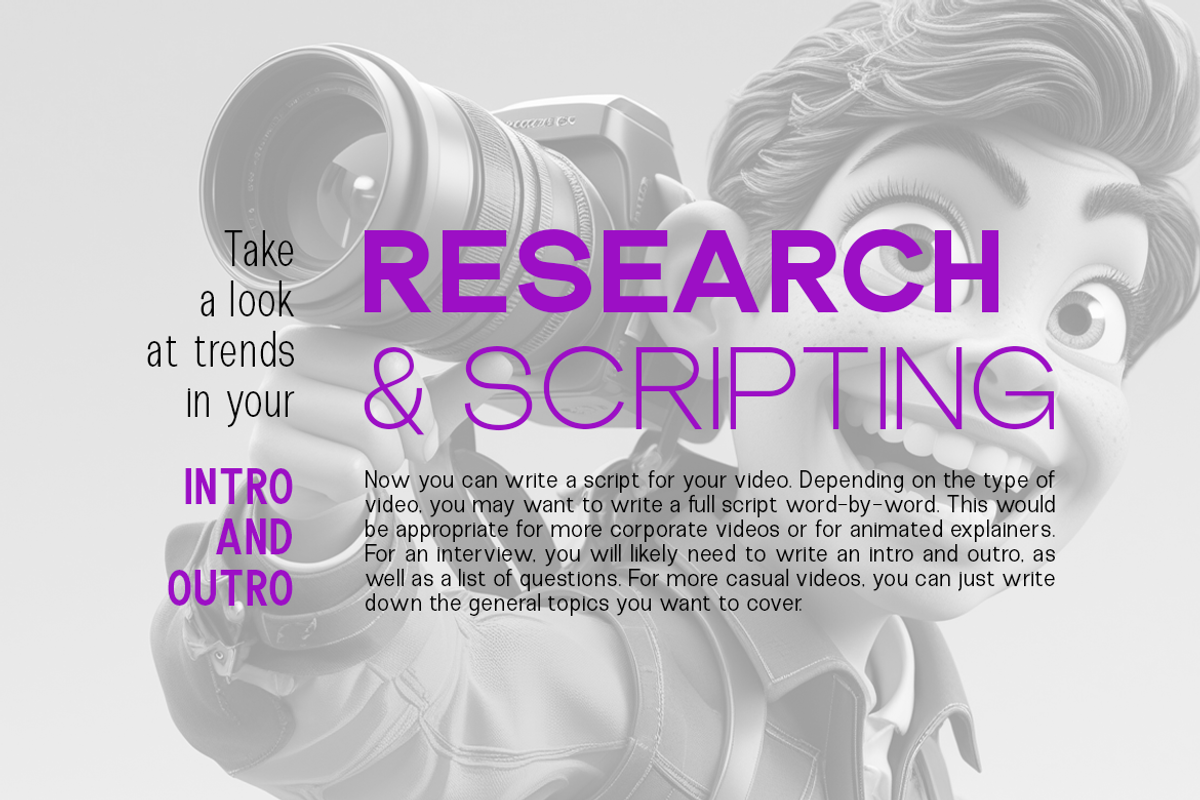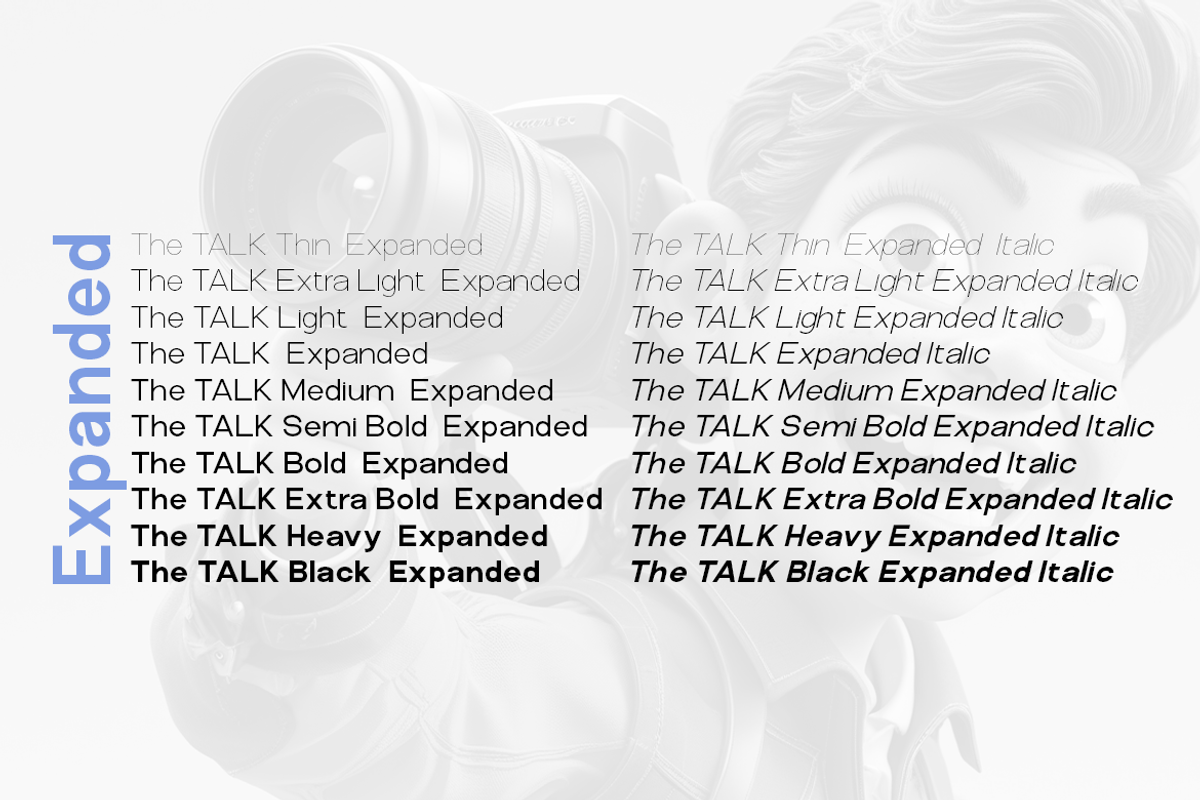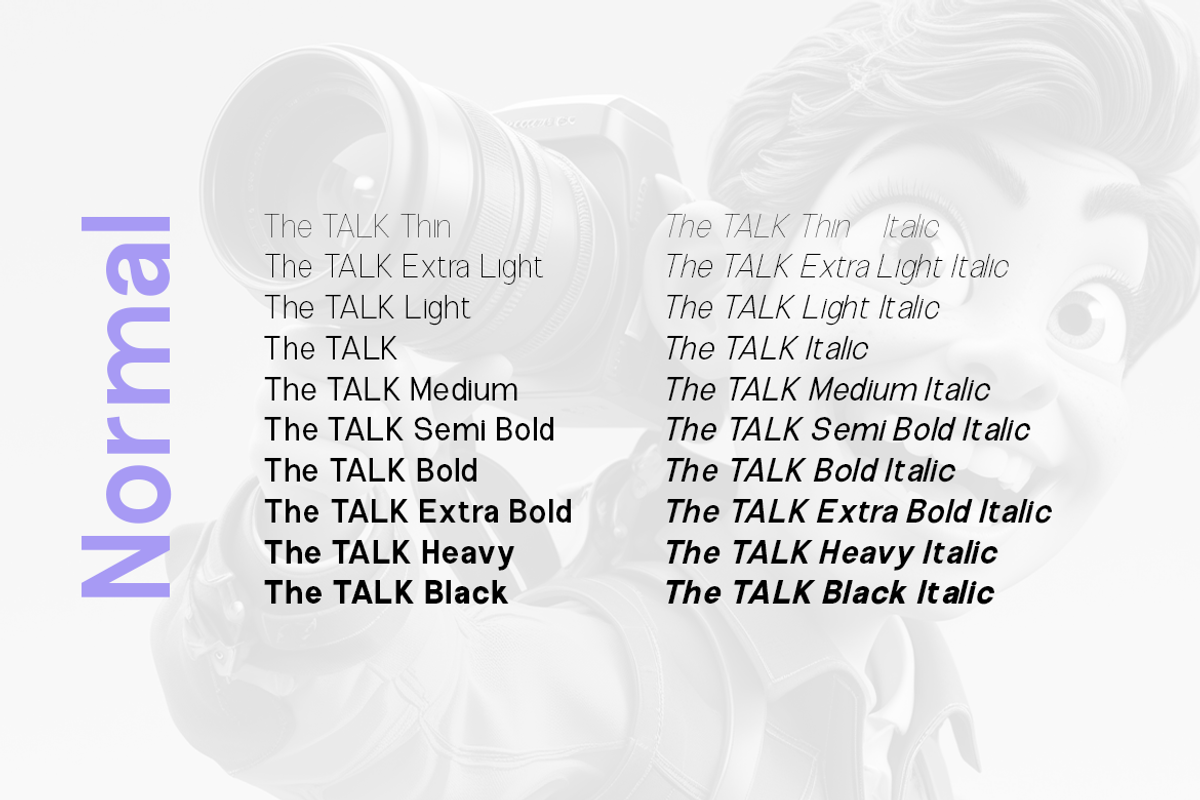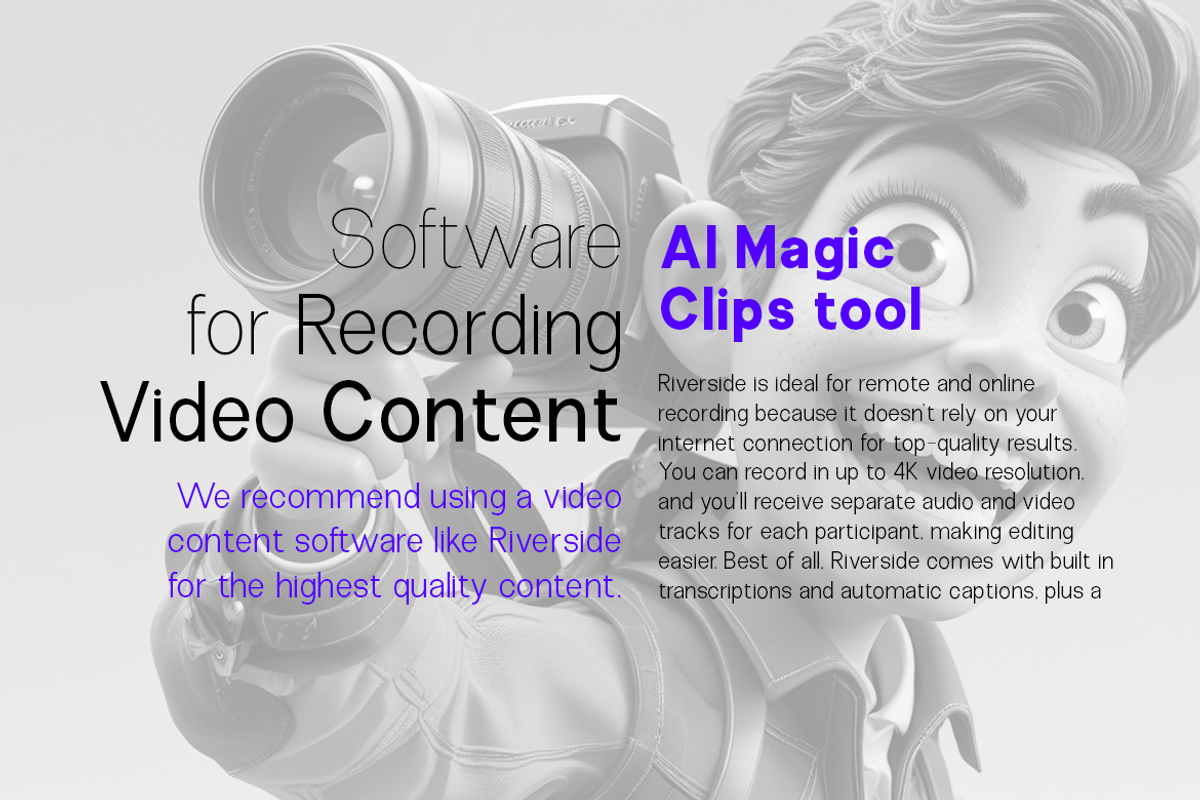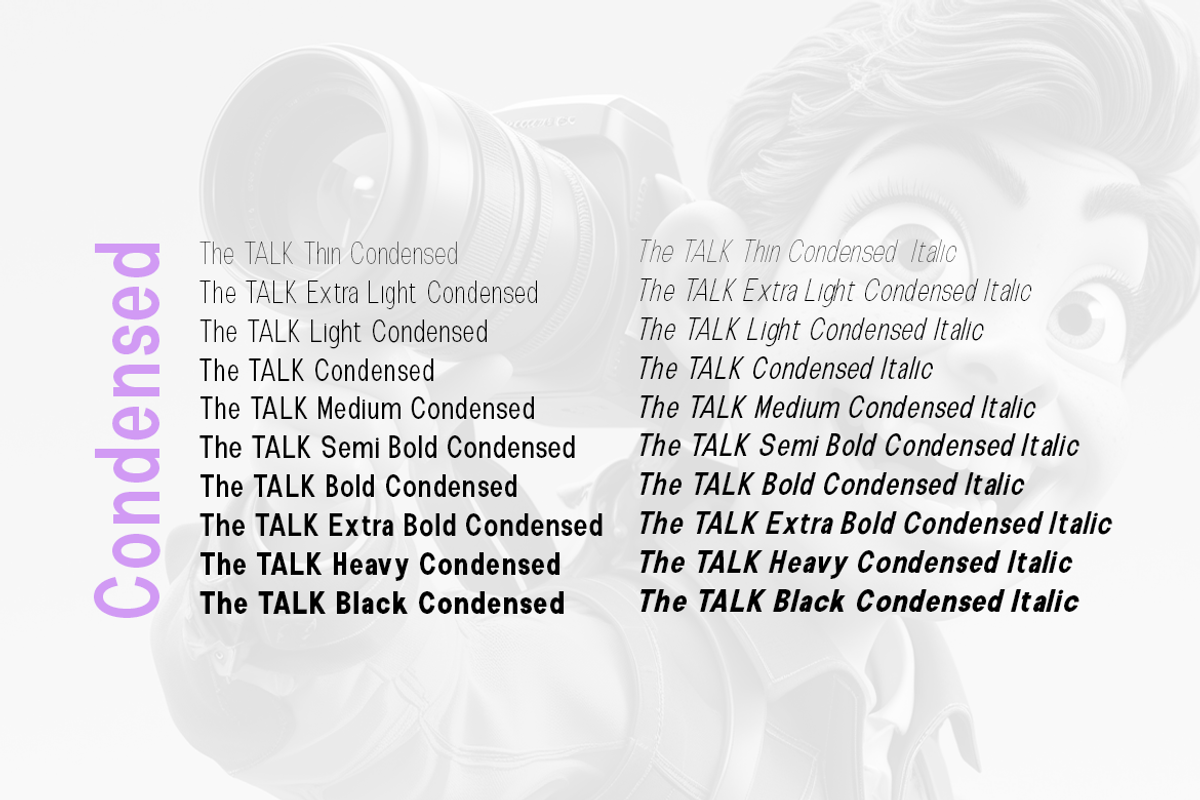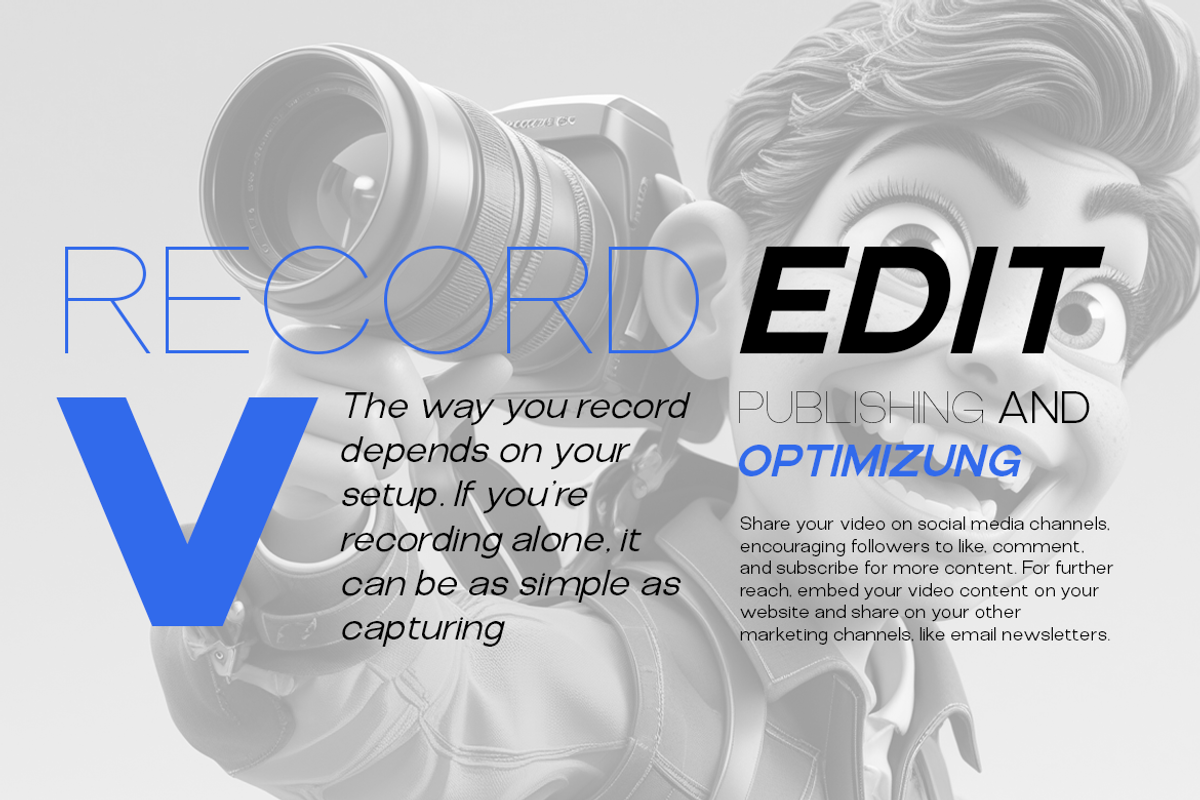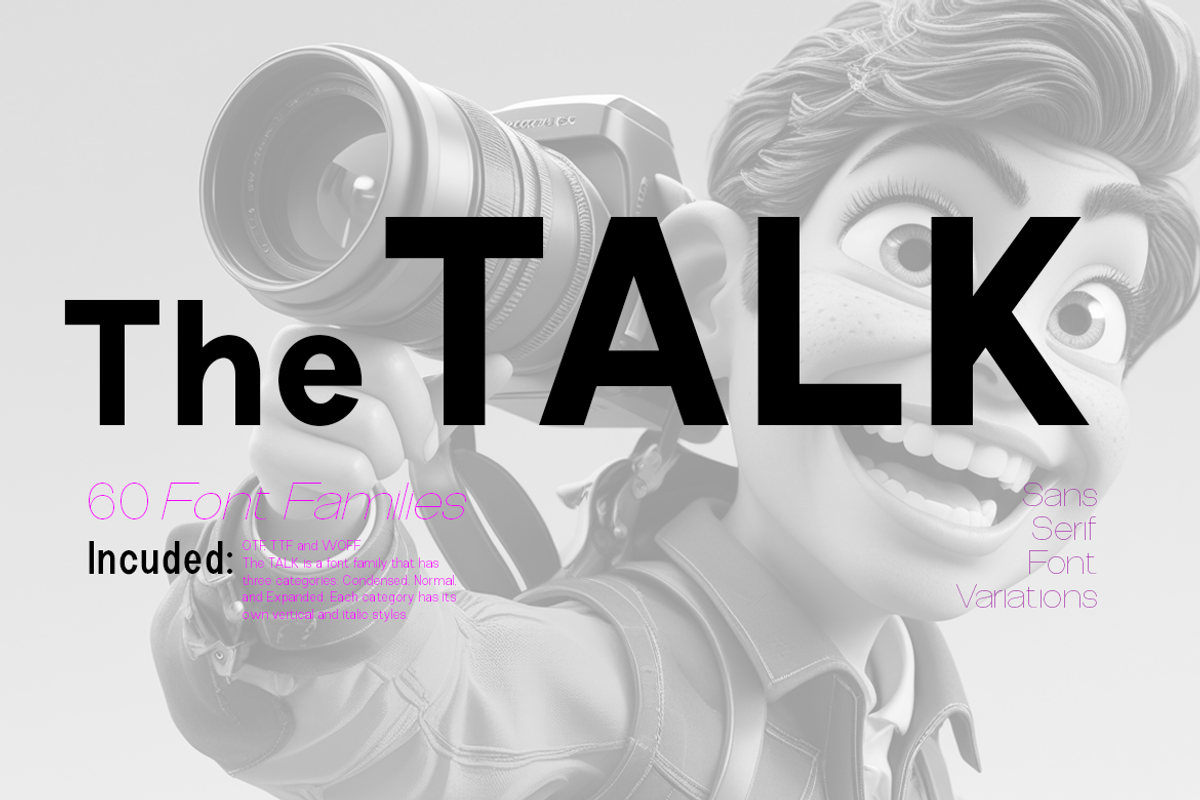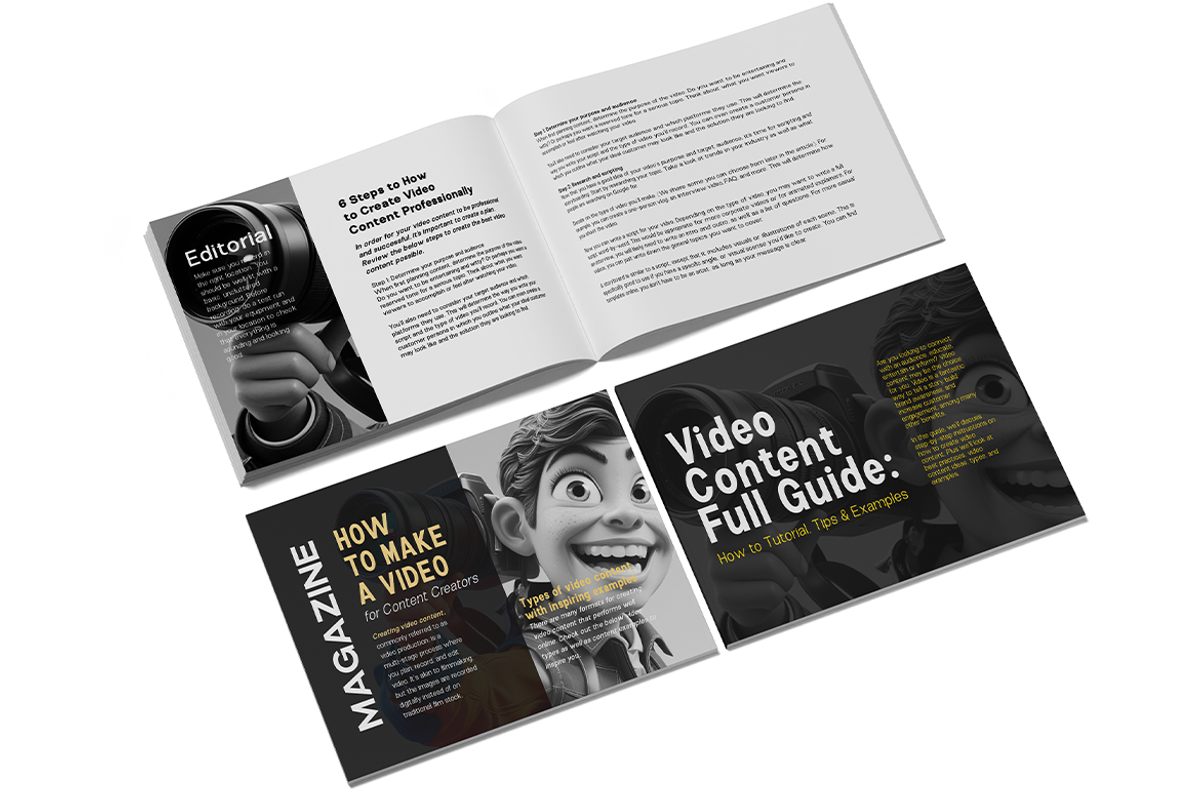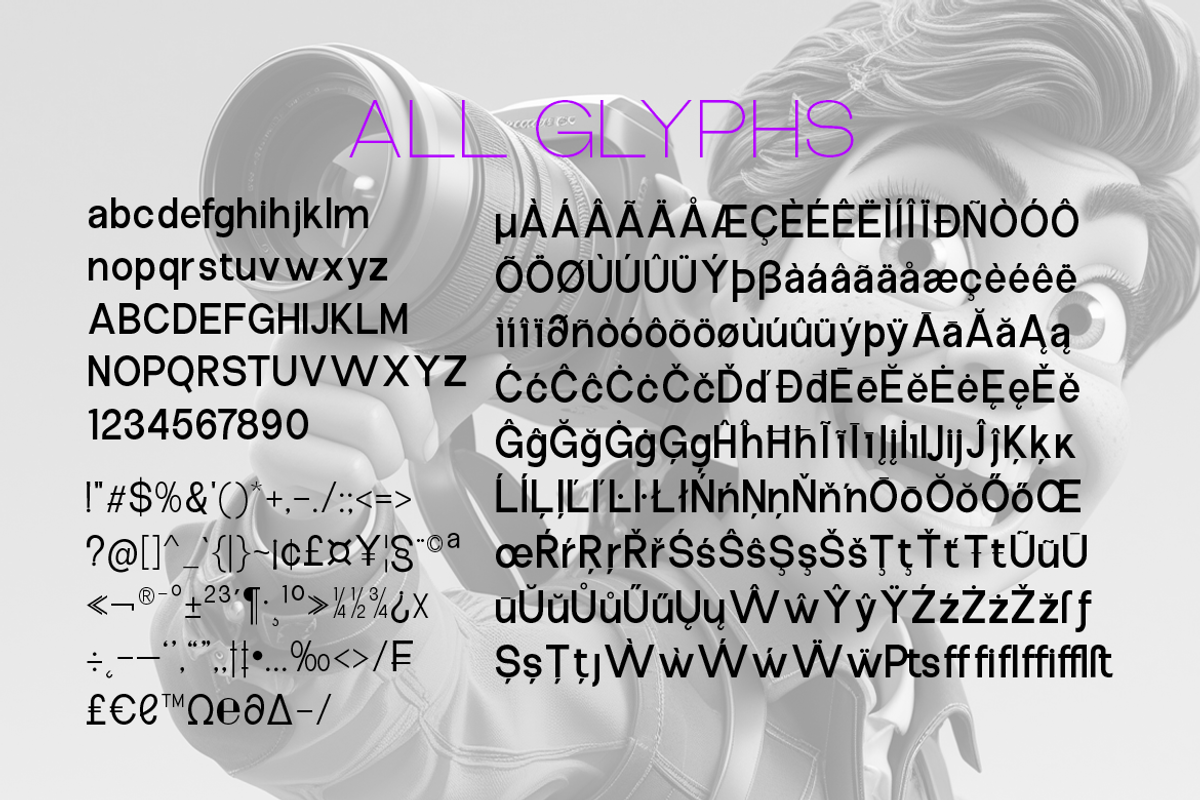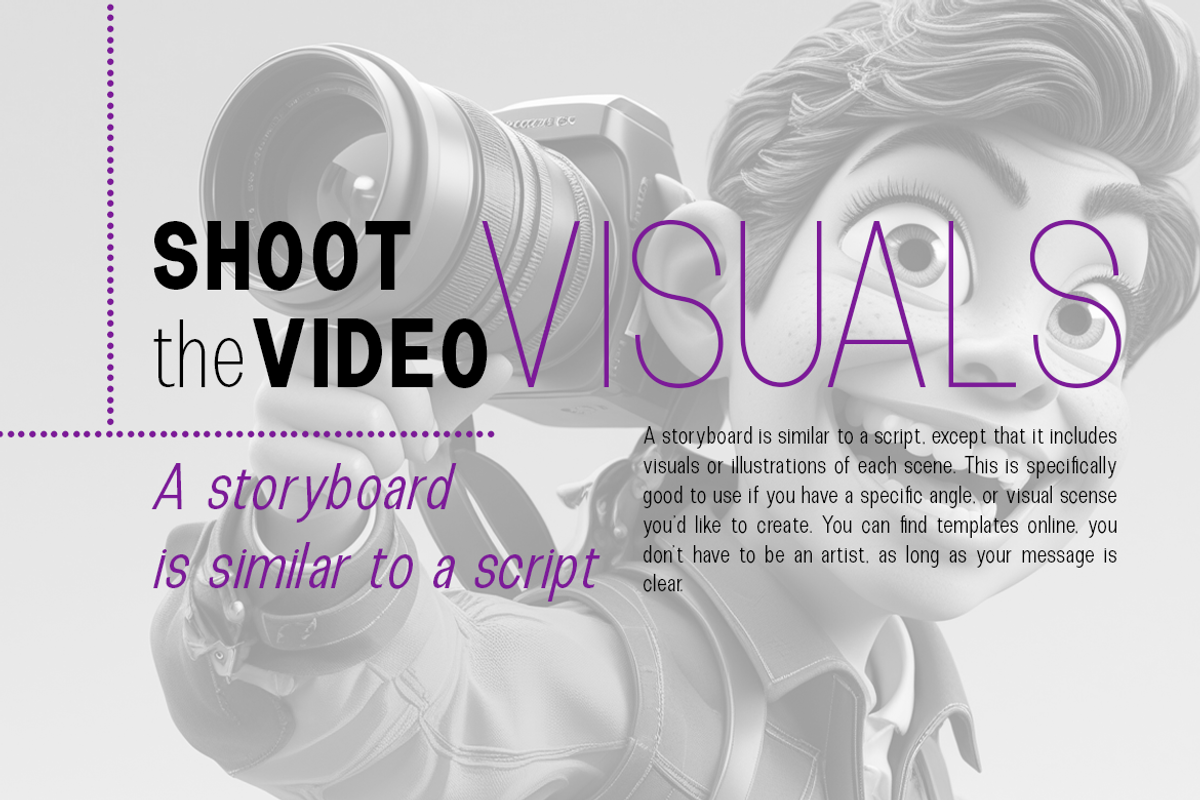
The Talk Sans Serif Font Family
The Talk—60-Style Sans Serif Font Family The Talk is a bold, modern, and highly flexible sans serif family created to elevate your branding, editorial, and digital design projects. With 60 professionally crafted styles, this collection gives you everything you need to build a strong and consistent visual identity. Designed with clean geometry and subtle humanist curves, The Talk delivers a look that’s modern, confident, and effortlessly stylish. Whether you're designing sleek headlines or clean interface text, this family adapts beautifully to any creative direction. Three Complete Subfamilies for Total Creative Freedom Condensed (20 Styles) Sharp, space-saving styles perfect for eye-catching headlines, bold posters, and impactful layouts. Thin to Black + Italics. Normal (20 Styles) The all-purpose workhorse—balanced, readable, and ideal for everything from body copy to branding, apps, packaging, and marketing materials. Thin to Black + Italics. Expanded (20 Styles) Wide, elegant styles that bring a premium, editorial, and high-end feel to your designs. Thin to Black + Italics. Included Formats All 60 styles come in OTF, TTF, WOFF, and WOFF2, giving you smooth, reliable performance in print, desktop software, and all major browsers. The Talk is built to help your brand stand out with clarity and style. If you’re looking for a complete, modern, and versatile font system that works everywhere—this is it.